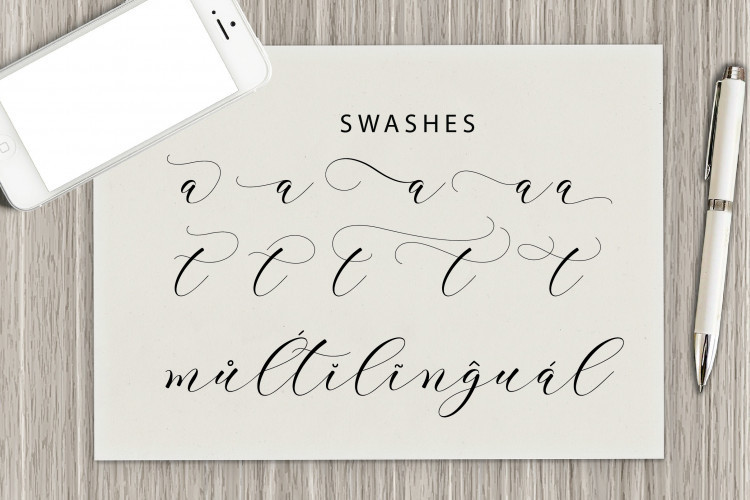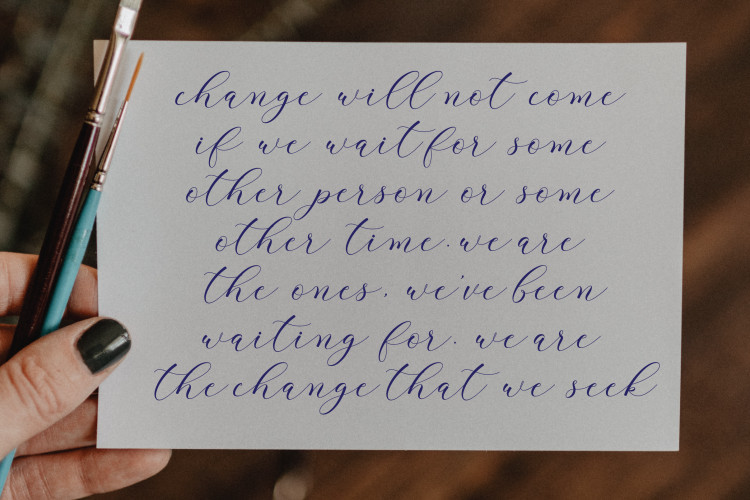
Soundmind Script Font is a delicate handwritten font, masterfully designed to become a true favorite. It maintains its classy calligraphic influences while feeling contemporary and fresh.